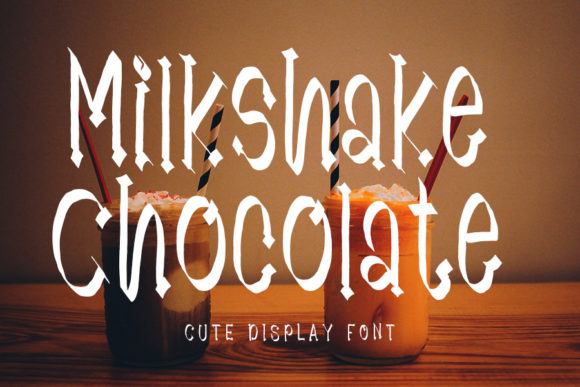
Introducing Milkshake Chocolate Font: Your Secret Sauce for Rustic, Cozy Farmhouse Designs!
Step into a world of rustic charm and modern farmhouse vibes with Milkshake Chocolate Font, a delightful display font that exudes simplicity, cuteness, and a squeaky-clean aesthetic. Designed by the creative minds at FL Space, Milkshake Chocolate Font is the ultimate tool for infusing your designs with a heartwarming country-chic touch.
Its neat and flexible style is like a magic wand, transforming each of your designs into a captivating journey. Let your creativity flow and explore endless variations, adding a touch of cozy elegance to everything you create.
Dive into the world of farmhouse signs, greeting cards, posters, and branding materials, where Milkshake Chocolate Font reigns supreme. Its versatility extends from wedding invitations to social media posts, bringing a touch of rustic charm to every digital and physical space.
With Milkshake Chocolate Font, you'll embark on a creative escapade, crafting designs that embrace the beauty of country living. Its warm and inviting personality adds a dash of sweetness to your projects, making them irresistible to anyone who lays eyes on them.